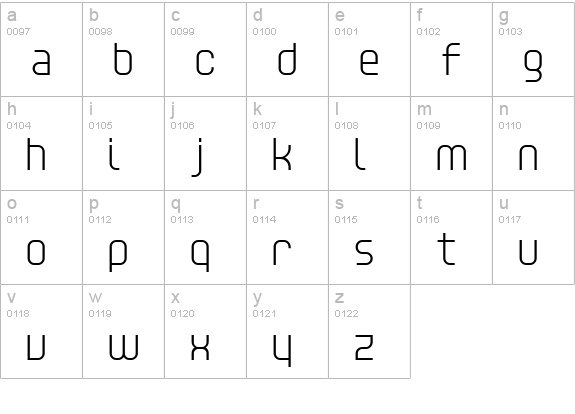
Unisect font is a modern and versatile typeface that combines clean lines with a unique geometric design. With its sleek and minimalist appearance, this font is perfect for a wide range of design projects, including logos, branding, posters, and websites. The beauty of Unisect font lies in its simplicity and attention to detail. Each letter is meticulously crafted to ensure perfect balance and harmony, resulting in a truly eye-catching visual experience. Its clean and crisp lines give it a contemporary feel, making it ideal for both digital and print mediums. One of the best features of Unisect font is that it is available for free download at FontsMarket.com. This means that designers and creatives can easily access this stunning font without any cost. Whether you are a professional designer or a hobbyist, Unisect font offers a world of possibilities and creative freedom. Unisect font is designed to be highly legible, making it perfect for both headlines and body text. Its versatile nature allows it to adapt to various styles and themes effortlessly, whether it's a sleek and modern design or a more traditional and elegant look. With its extensive character set, Unisect font supports multiple languages, making it accessible to designers from all over the world. It also includes a range of special characters and glyphs, adding even more creative potential to your designs. In conclusion, Unisect font is a must-have for any designer looking to add a touch of modern sophistication to their projects. Its clean lines, versatility, and legibility make it suitable for a wide range of applications. And the best part? It's freely available to download at FontsMarket.com, allowing you to unleash your creativity without any limitations. So don't miss out on the opportunity to elevate your designs with Unisect font – your next masterpiece awaits.